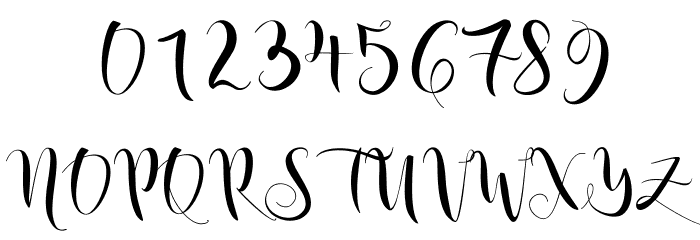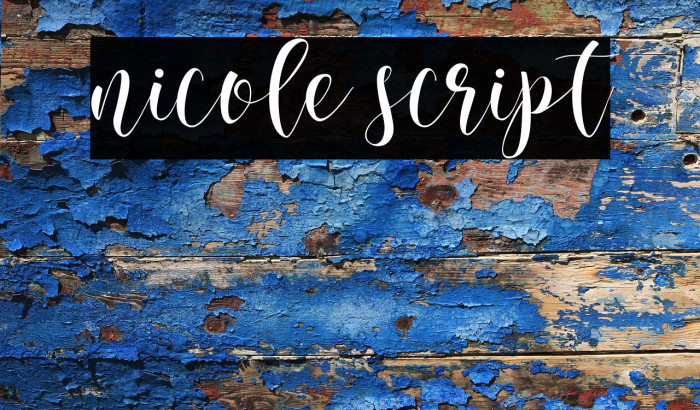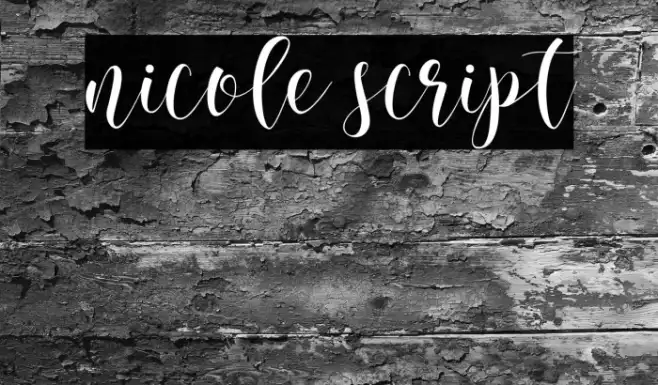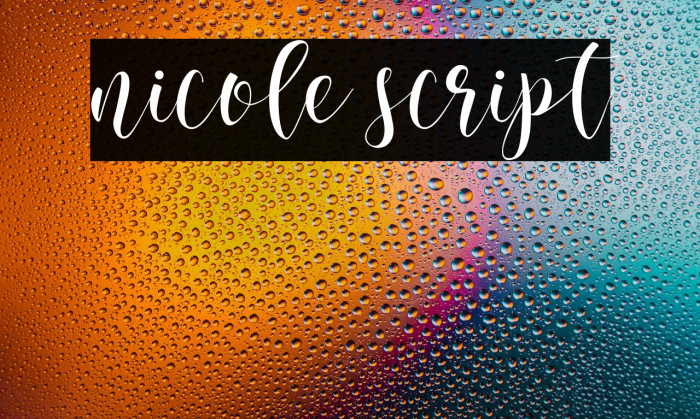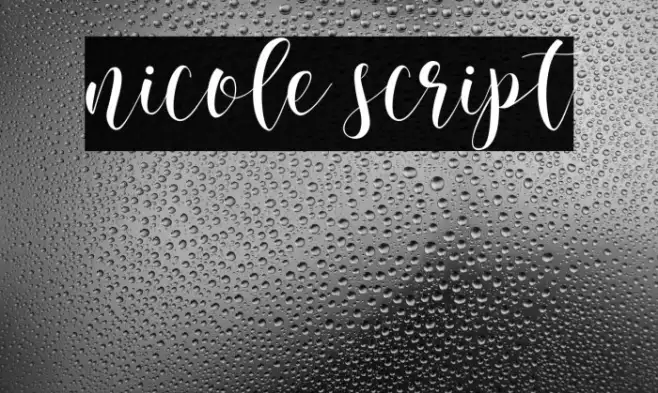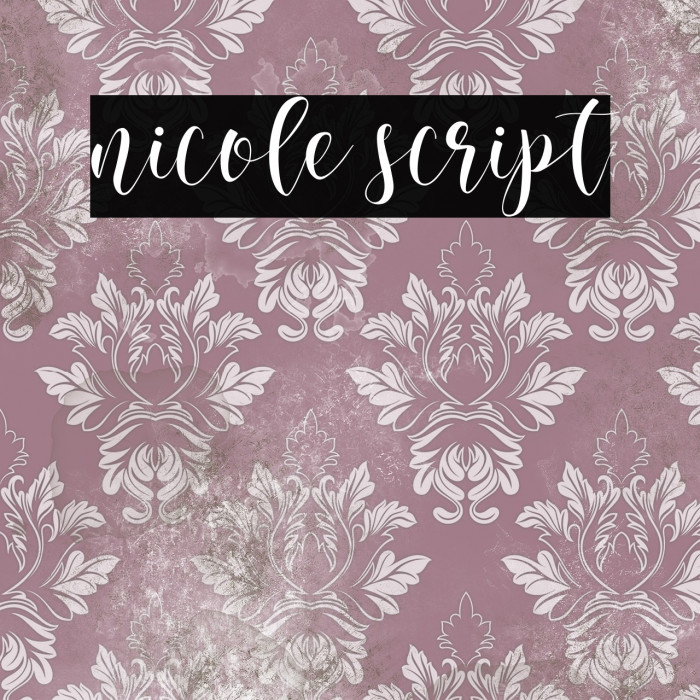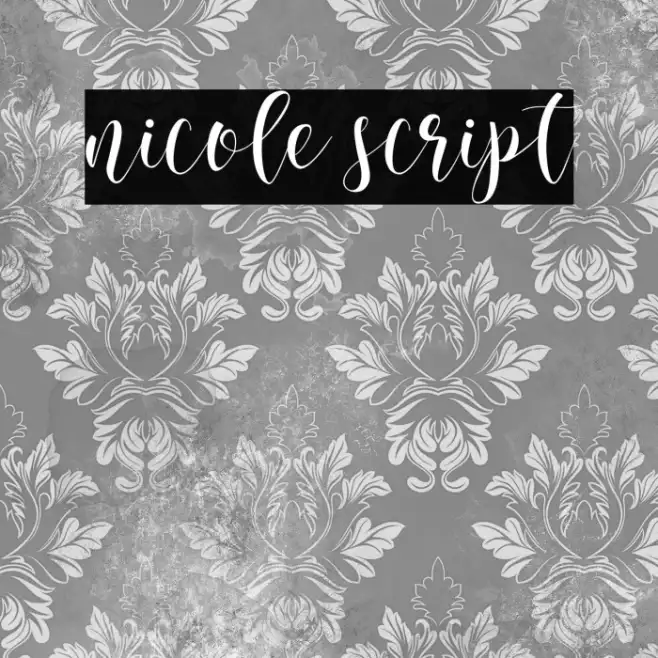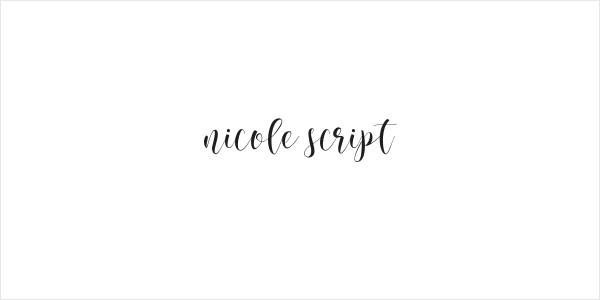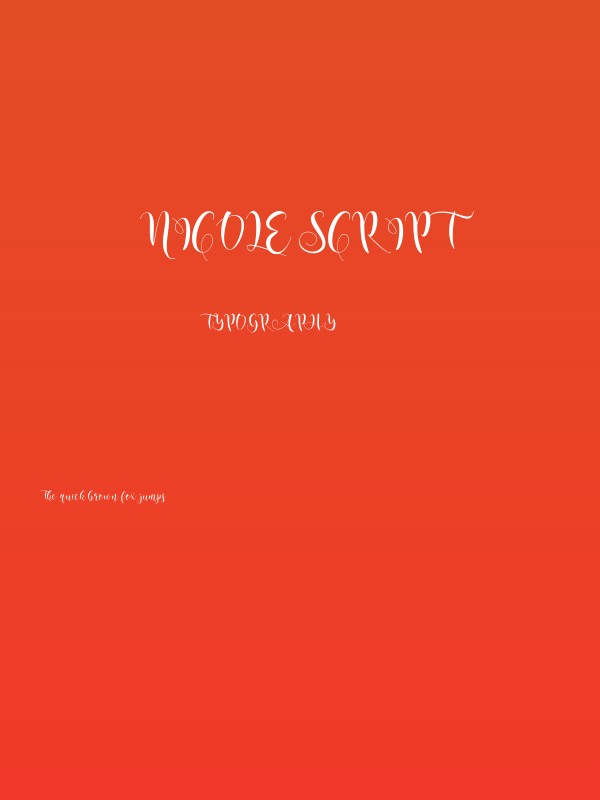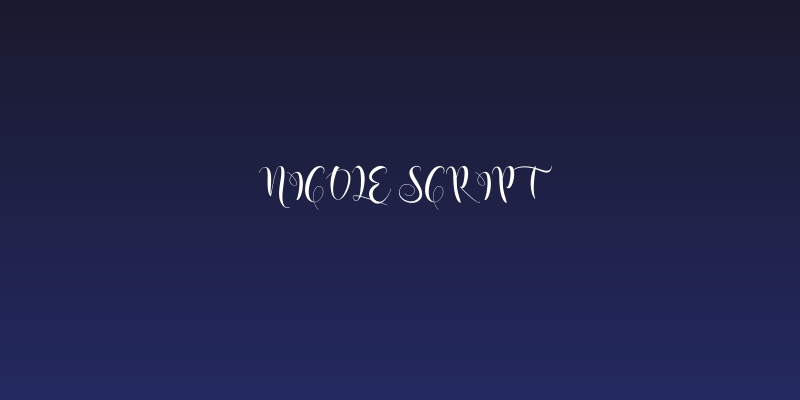
nicole script Font
nicole script Description
This elegant script font features flowing, cursive letterforms with intricate swashes and loops, creating a sense of sophistication and grace. The uppercase letters are particularly ornate, with extended flourishes that add a decorative touch. The lowercase letters maintain a consistent style, with smooth curves and a natural handwritten feel. The numerals are designed to complement the letters, maintaining the same fluidity and elegance. This font is perfect for projects that require a touch of class and elegance, such as wedding invitations, formal event branding, or luxury product packaging.
| Use Case | Logos, Invitations, Headlines |
| Proposed Projects | Ideal for wedding invitations, formal event branding, luxury product packaging, and elegant stationery. |